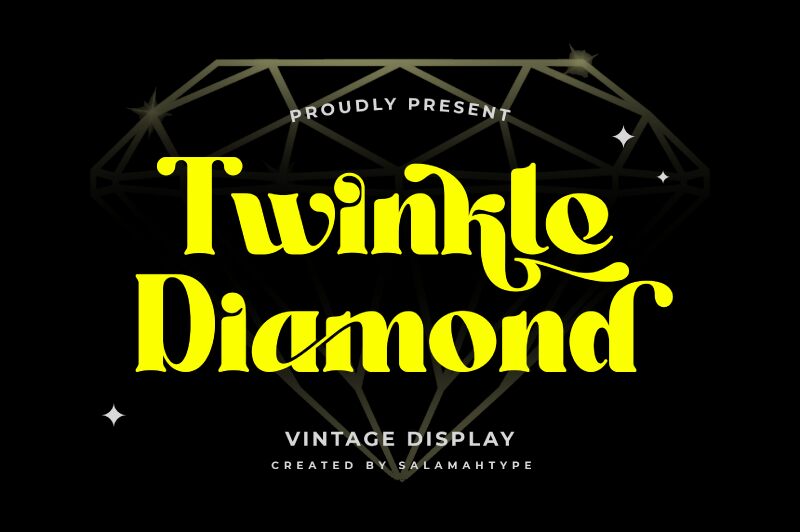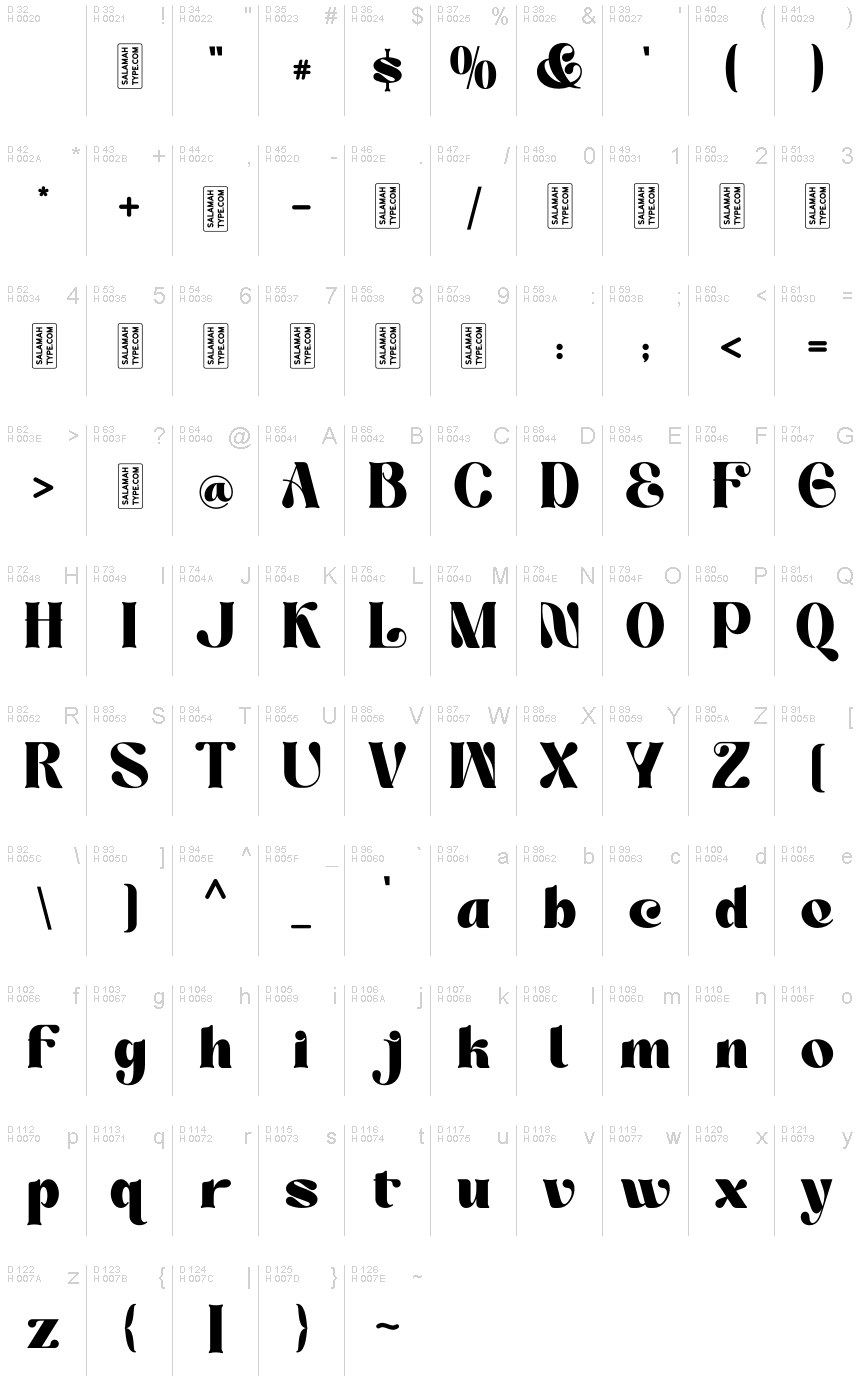
Twinkle Diamond DEMO
Twinkle Diamond font by Salamahtype.com is bold serif retro display font perfect for your latest project. It has high contrast between the thin and thick lines, combined with elaborate decorative details give this typeface strong vintage inspired vibes. This elegant font has a dramatic flair that can add a sophisticated mood to any setting.
Its emphasis on unique decorative shapes makes it an amazing choice for headlines, titles, headers or any large typography pieces as well as posters, t-shirts, merchandise labels or even tattoos. It has enough charming and unusual flair to make logos stand out or help quirky books covers attract more readers’ attention.